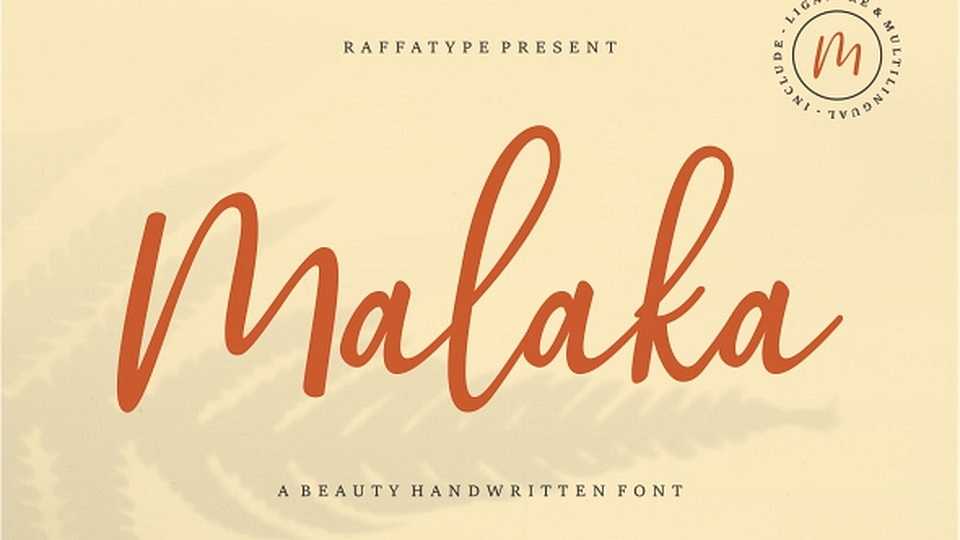
Download Malaka font, an exquisite handwritten typeface, masterfully designed to become a true favorite. Malaka maintains its classy calligraphic influences while feeling contemporary and fresh.
Designer: RaffaType